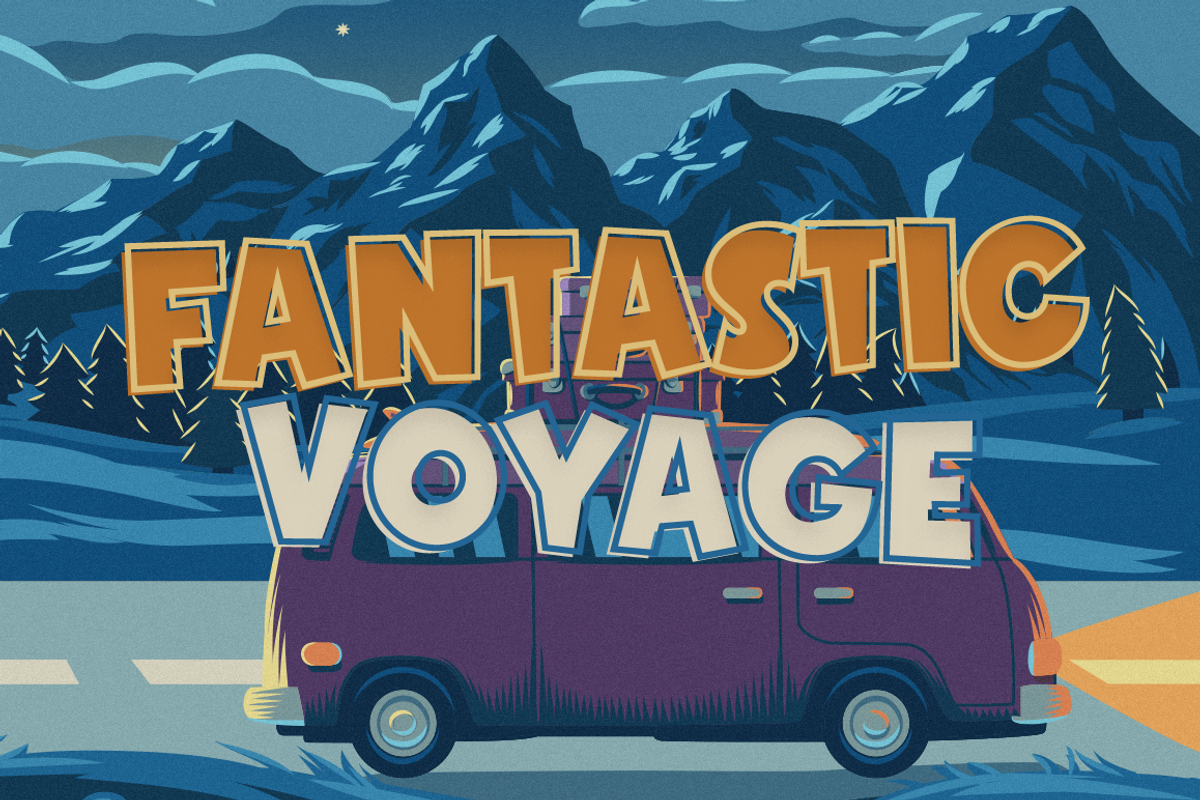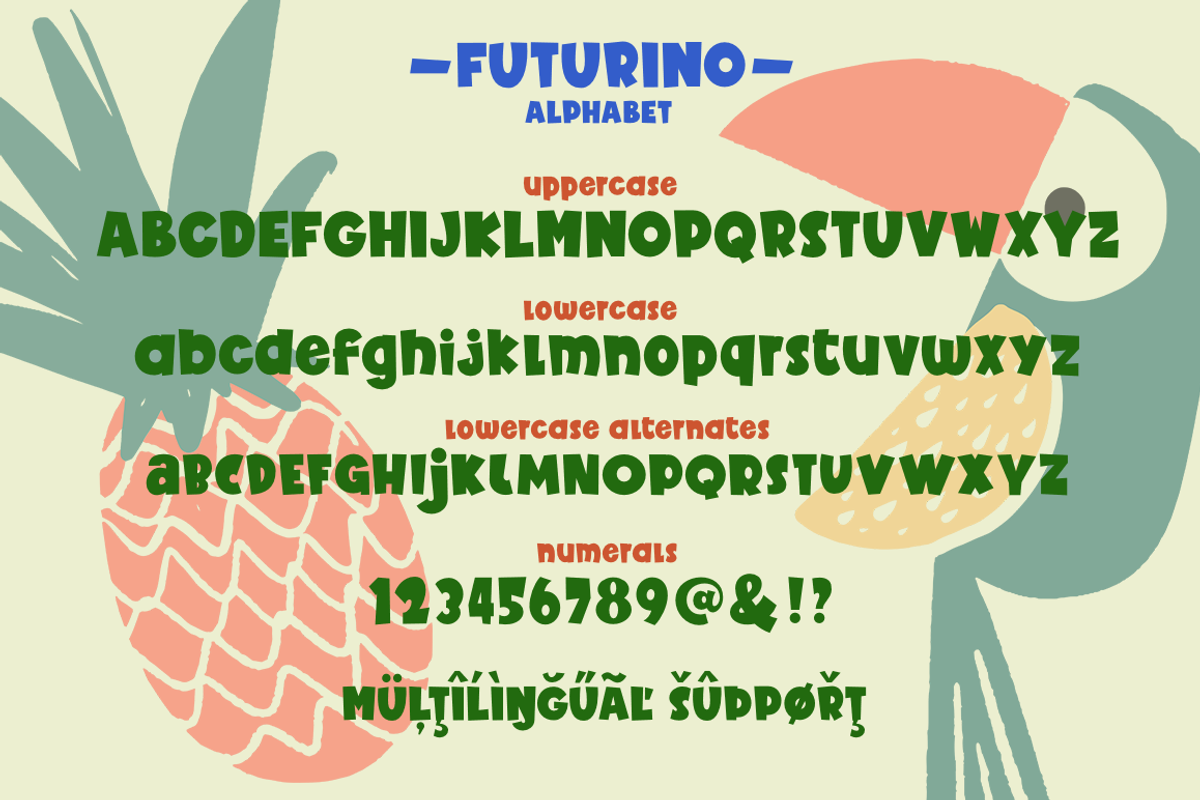
Futurino
Futurino - a new fun display font collection.
This is a fun font that is perfect for creating your project, it can be used to create a beautiful inscription for t-shirts, children's books, branding small business, book covers, stationery, marketing, blog, magazines and more.